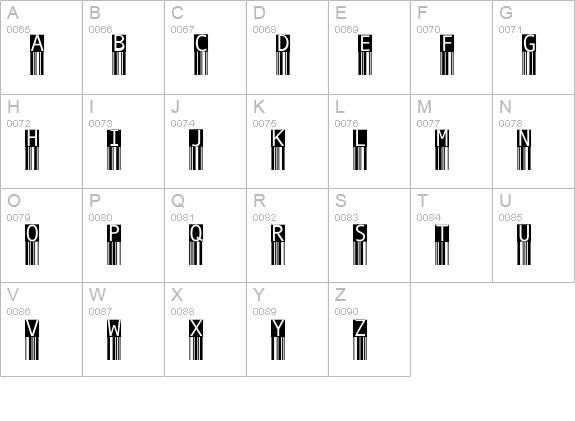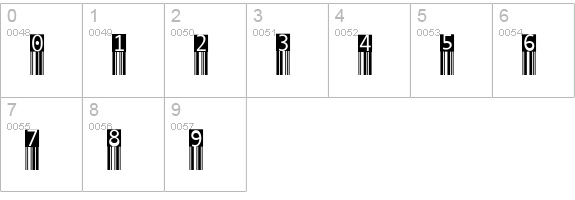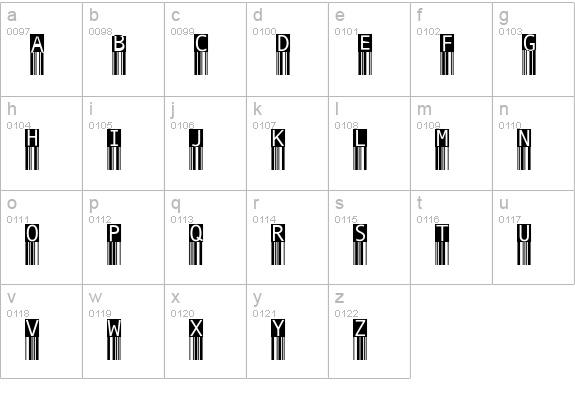
BarMKode-Inverse Font Details
BarMKode-Inverse font is a visually striking and unique typeface that adds a modern and edgy touch to any design project. With its bold and geometric appearance, this font is perfect for creating eye-catching headlines, posters, logos, and more. The inverse style of the font gives it a futuristic and tech-savvy look that is sure to make your designs stand out. The best part is that BarMKode-Inverse font is completely free to download at FontsMarket.com. This means you can easily access this stylish font and incorporate it into your projects without any cost. Whether you're a professional designer looking to add a fresh new font to your collection or a hobbyist looking to experiment with different styles, BarMKode-Inverse font is a great choice for adding a modern and dynamic flair to your designs.